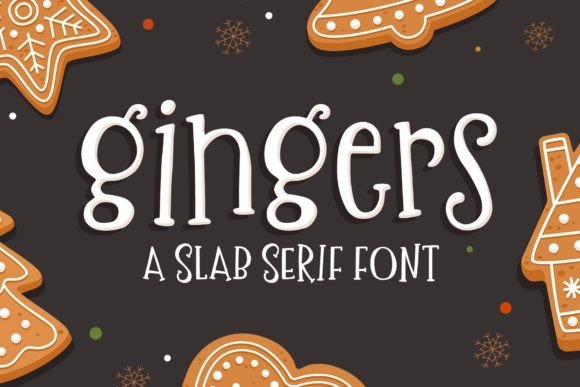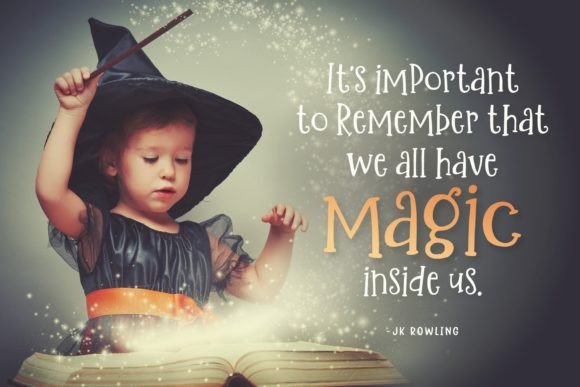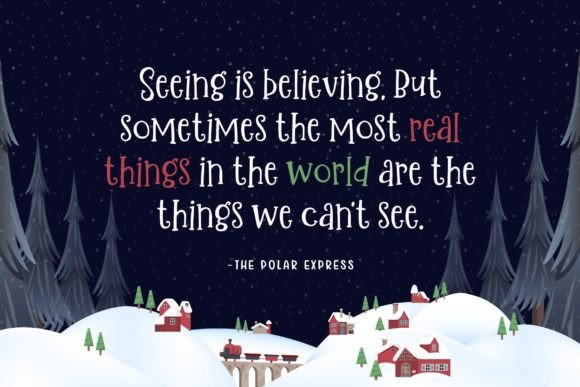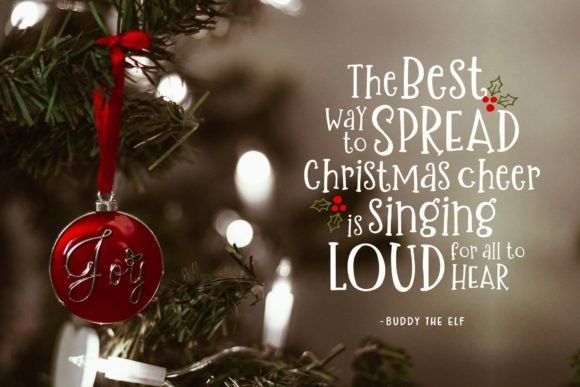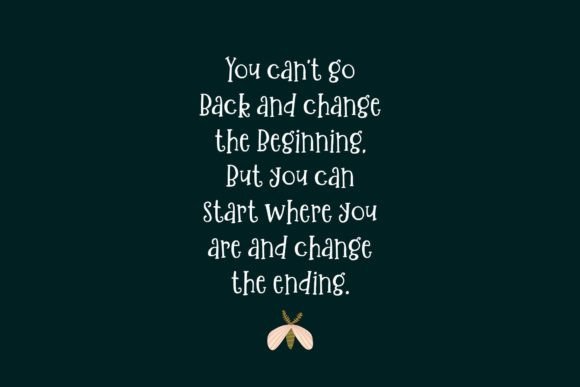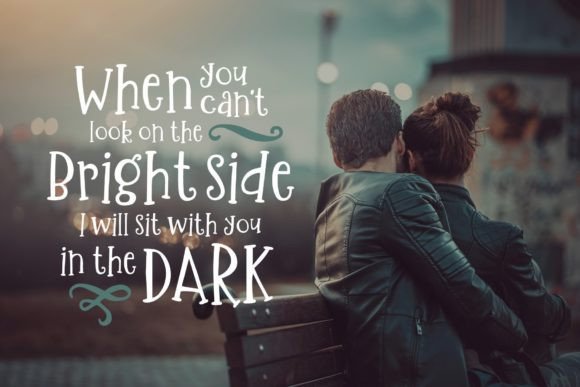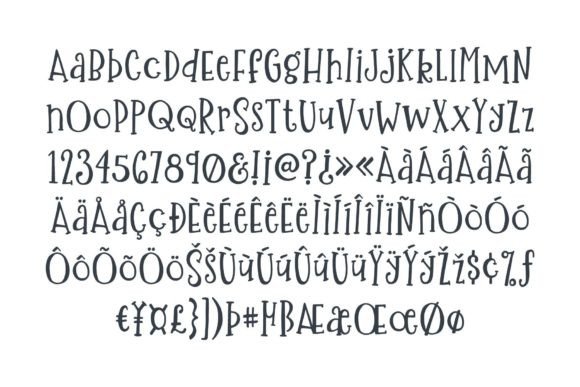
Gingers
Gingers: A Sweet and Curly Slab Serif Font
Gingers is a sweet and curly slab serif font. It is perfect for the holiday season or any time of the year when you need to add a little whimsy and charm. This versatile font looks great in large sizes and is very readable in smaller sizes.
Key Features of Gingers
• Sweet Design: Offers a charming and whimsical look suitable for various applications.
• Curly Slab Serif: Features distinctive curly serifs that add character and playfulness.
• Versatile Sizing: Maintains its appeal in both large and small sizes.
• Holiday-Friendly: Perfect for seasonal designs, especially during the holiday season.
Ideal Uses for Gingers
Gingers’ unique characteristics make it particularly well-suited for:
When incorporating Gingers into your designs, consider these tips:
• Use for headlines or short blocks of text to showcase its curly style.
• Experiment with different sizes to highlight the font’s versatility.
• Utilize its sweet appearance to create designs that evoke warmth and charm.
Gingers is an excellent choice for designers looking to add a sweet and curly slab serif font to their typographic toolkit. Its ability to bring whimsy and charm to various design projects makes it stand out in the world of typography. Whether you’re working on holiday-themed designs, creating children’s book covers, or developing content that requires a touch of playfulness, Gingers offers the perfect blend of style and readability.
Furthermore, Gingers’ unique design allows it to shine in various contexts. From festive packaging to whimsical branding, this font can elevate your projects with its distinctive style. Its curly yet readable appearance works particularly well in designs that aim to evoke feelings of joy and warmth, making it a versatile choice throughout the year.
In conclusion, Gingers is a font that truly captures the essence of sweetness and whimsy in typography. Its versatility across different sizes and applications showcases its adaptability to various creative needs. For those looking to add a touch of charming playfulness to their work, Gingers can enhance themed creations with its distinctive style. It’s the perfect choice for designers seeking to make a sweet, stylish impact across a wide range of creative projects, especially during the holiday season and beyond.